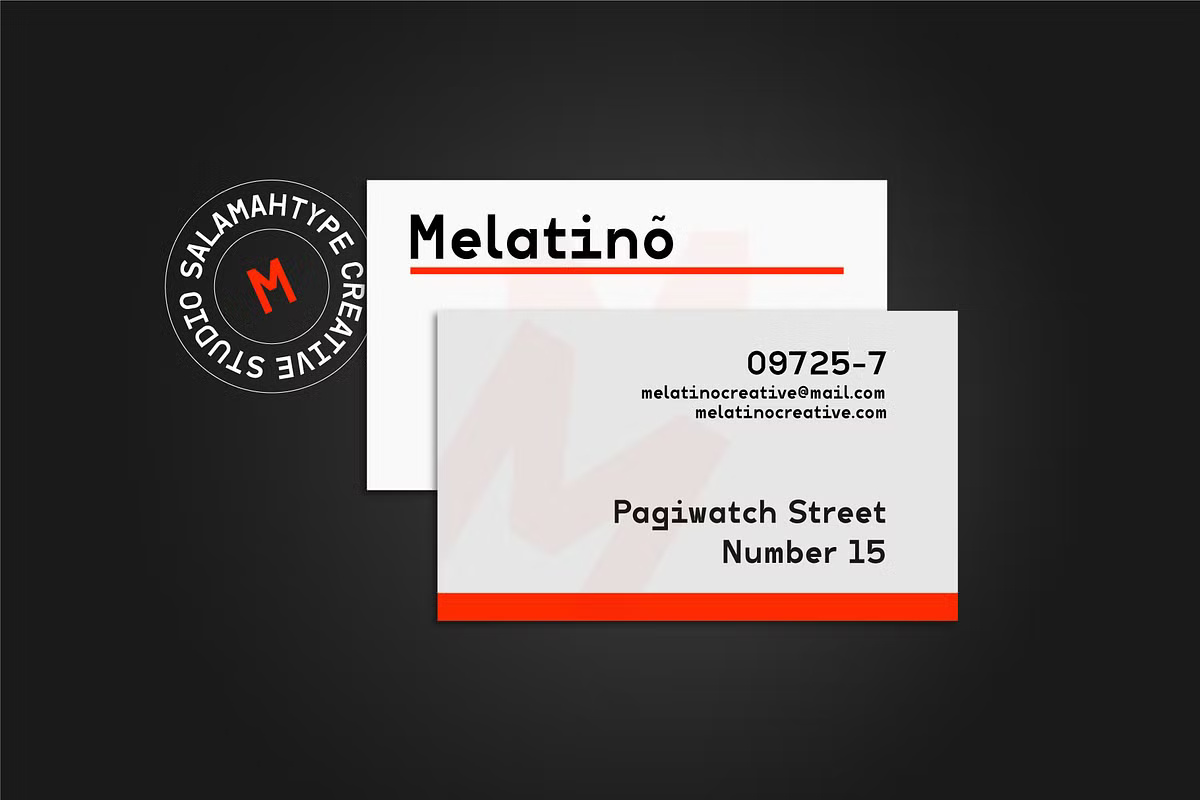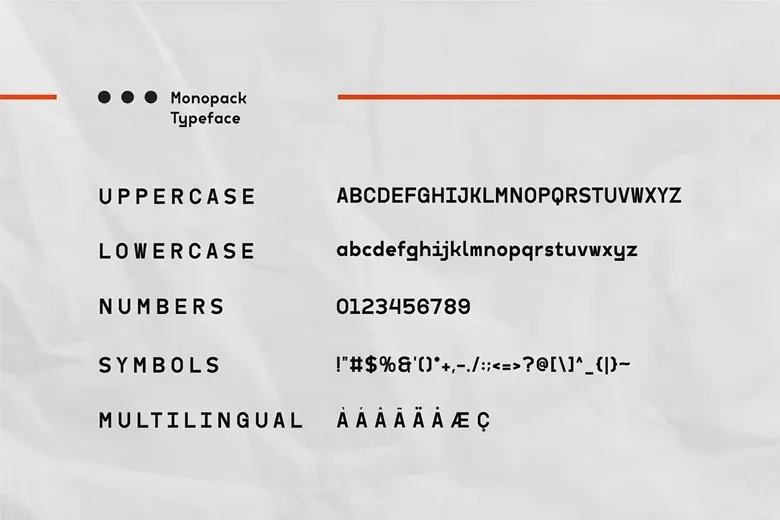
Monopack Font
Monopack is a modern monospace sans serif typeface available in four distinct styles: Regular, Oblique, Condensed, and Condensed Oblique. It is designed to be clean, readable, and versatile, making it perfect for a variety of design projects. Some characters feature small ink traps, which give the font a unique and stylish touch. Monopack’s technical and sleek aesthetic makes it an ideal choice for titles, logos, interfaces, and any design that requires a sharp, professional look.